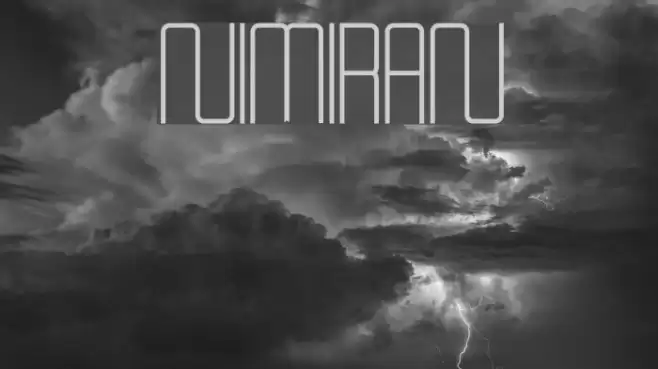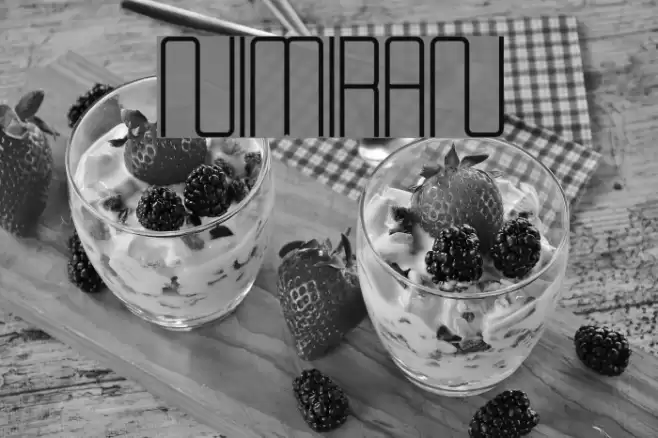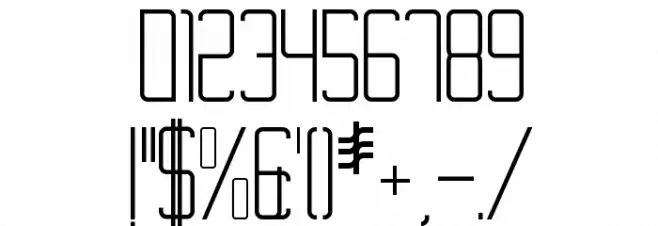
Nimiran Font
Nimiran Description
This font features a modern, geometric design with a distinctively futuristic feel. The characters are constructed with clean, straight lines and sharp angles, giving it a sleek and minimalistic appearance. The uppercase and lowercase letters maintain a consistent height, contributing to a uniform look across text. The numerals and special characters are designed to match the overall aesthetic, ensuring visual harmony. This font's unique style makes it suitable for projects that require a contemporary and innovative touch.
A modern, geometric font with a sleek, futuristic design from Uncategorized fonts.
- Proposed Projects: Ideal for technology branding, sci-fi themed projects, modern posters, and innovative product packaging.